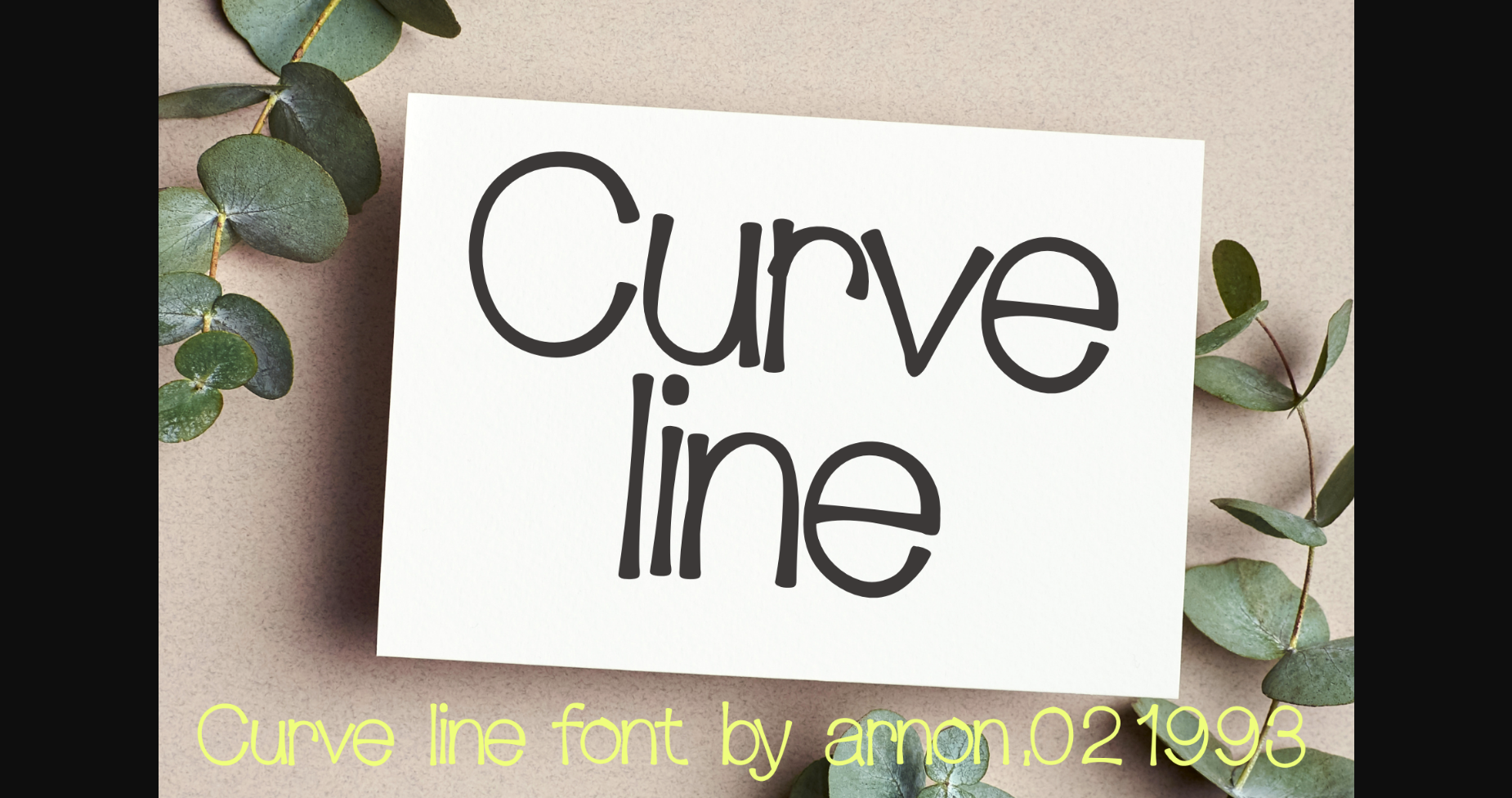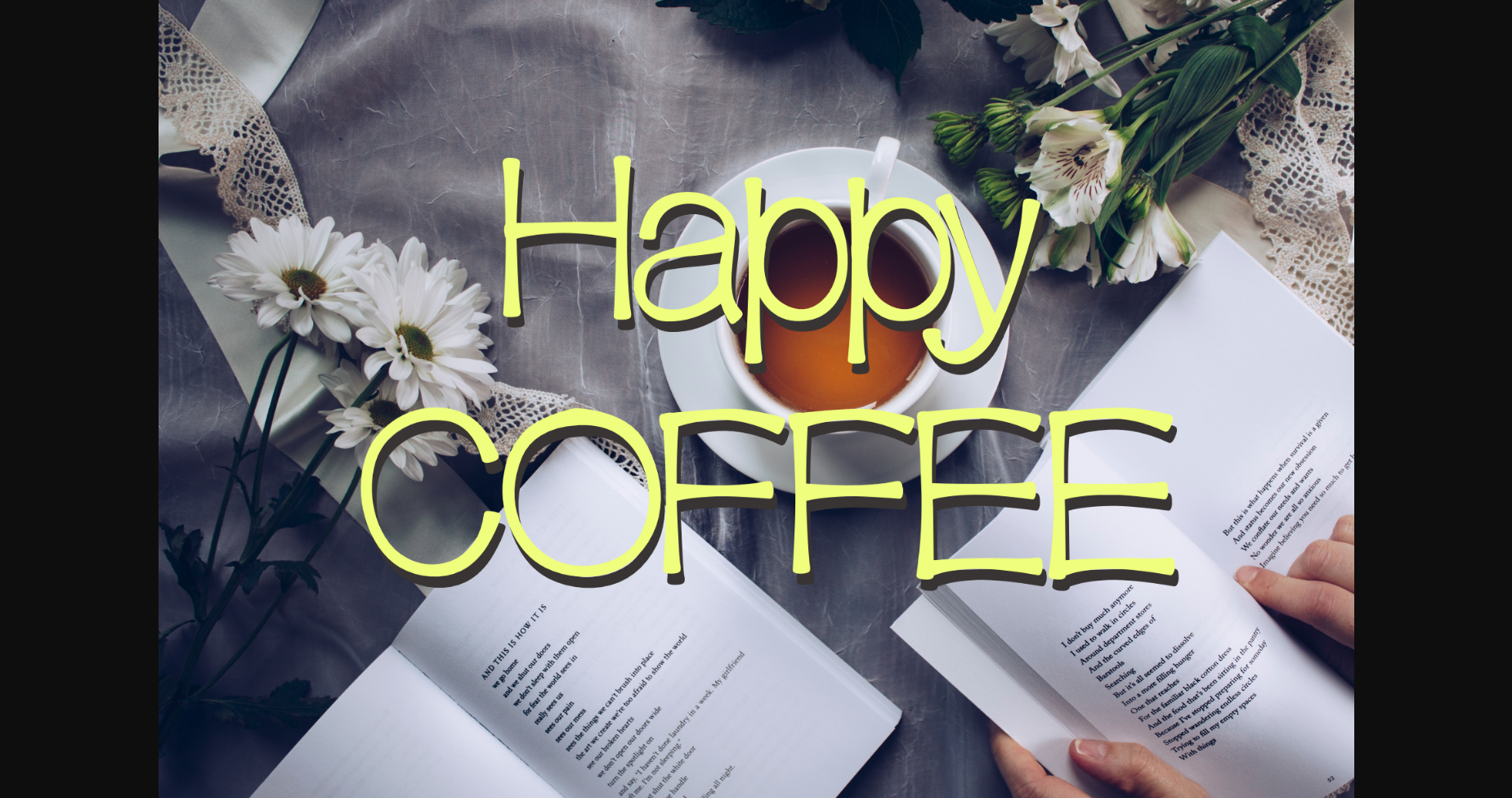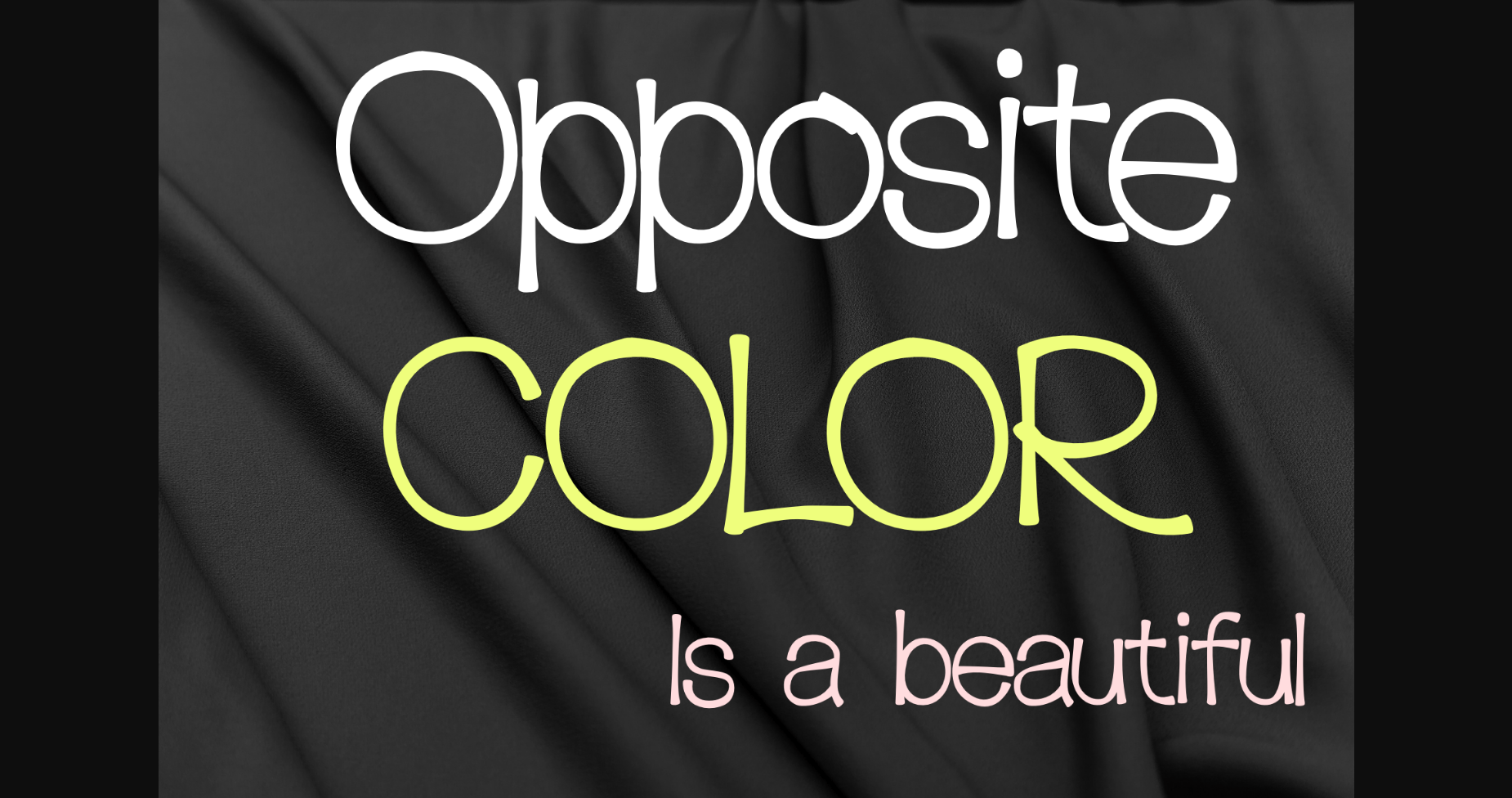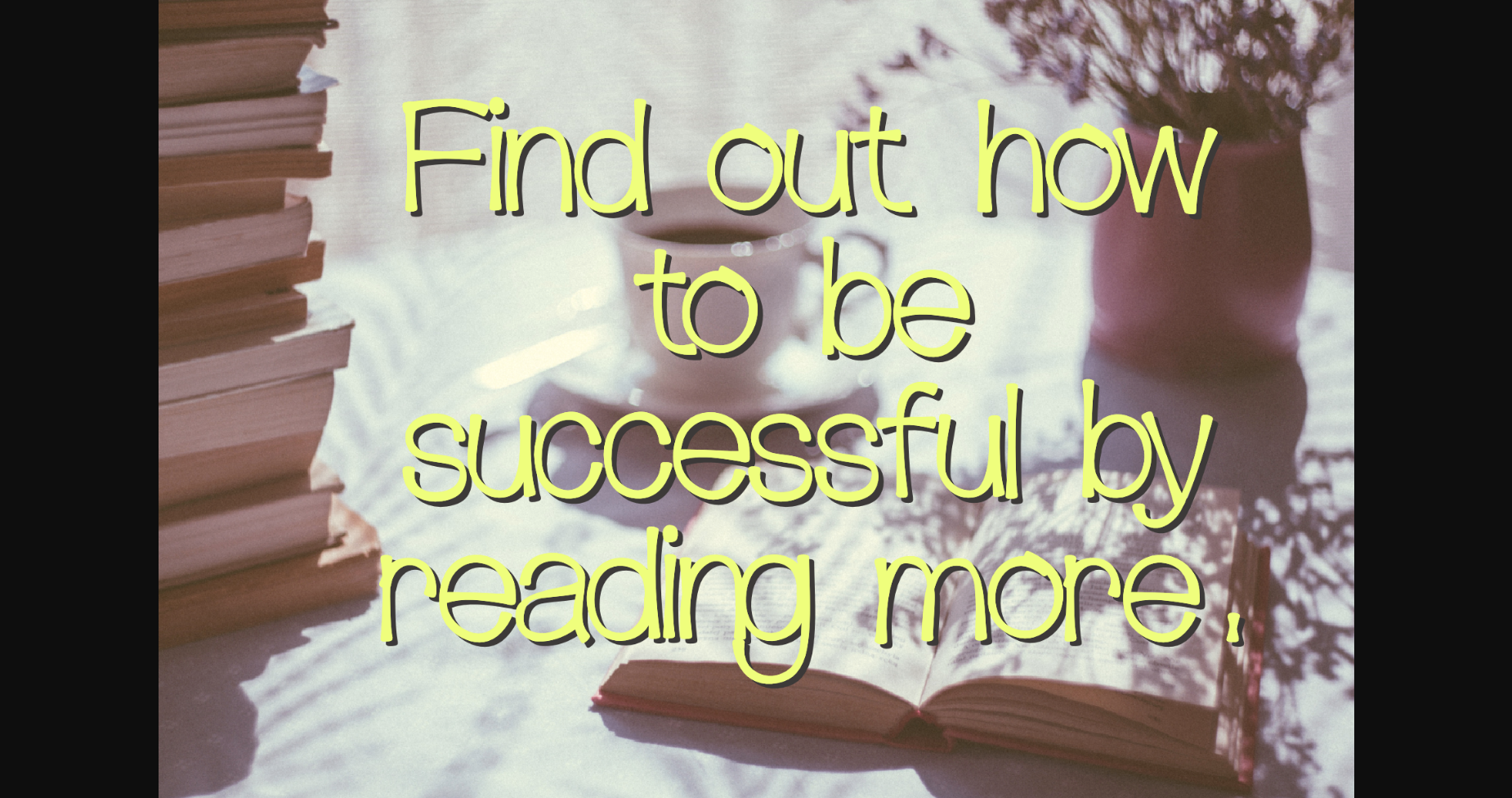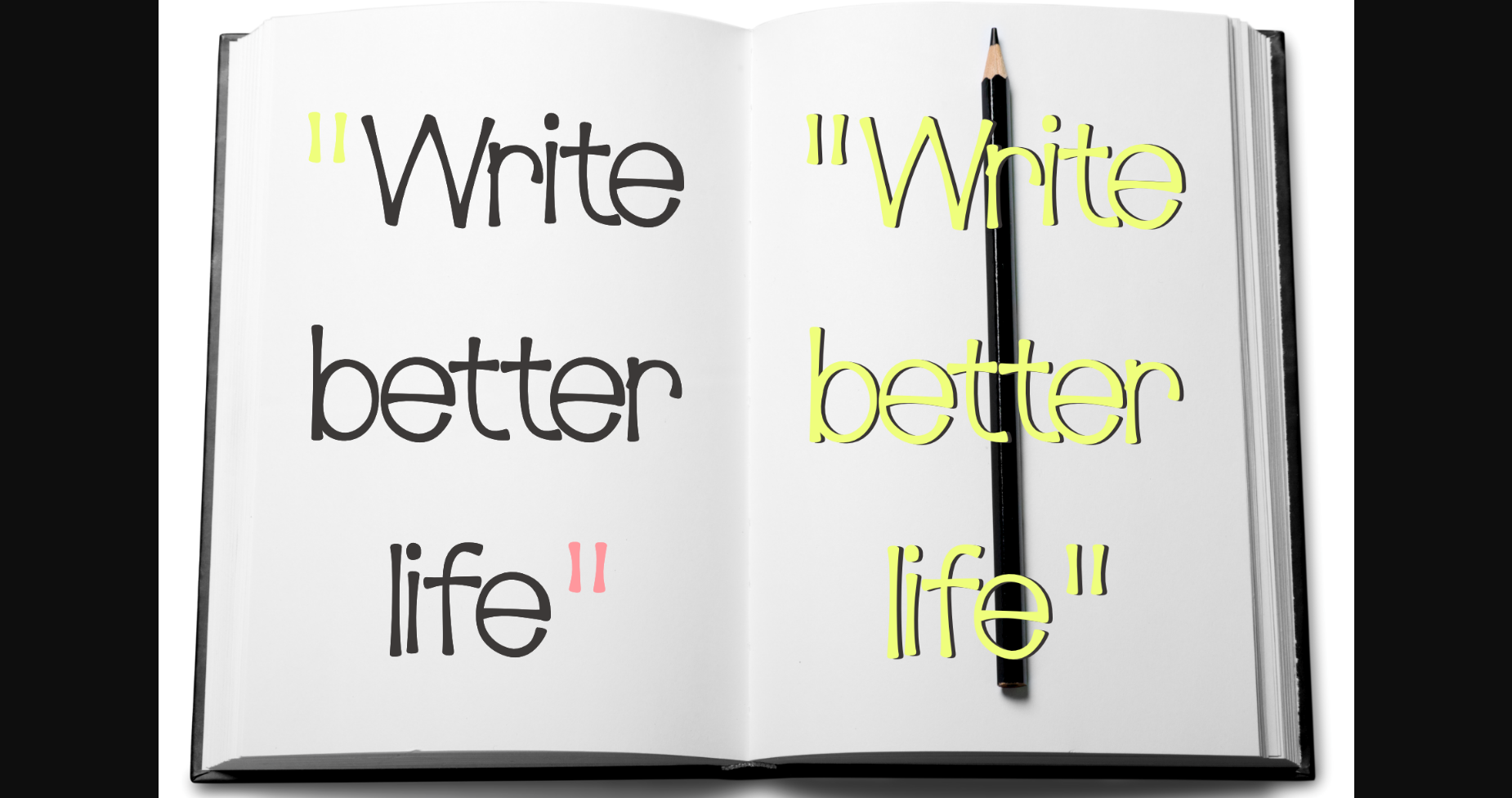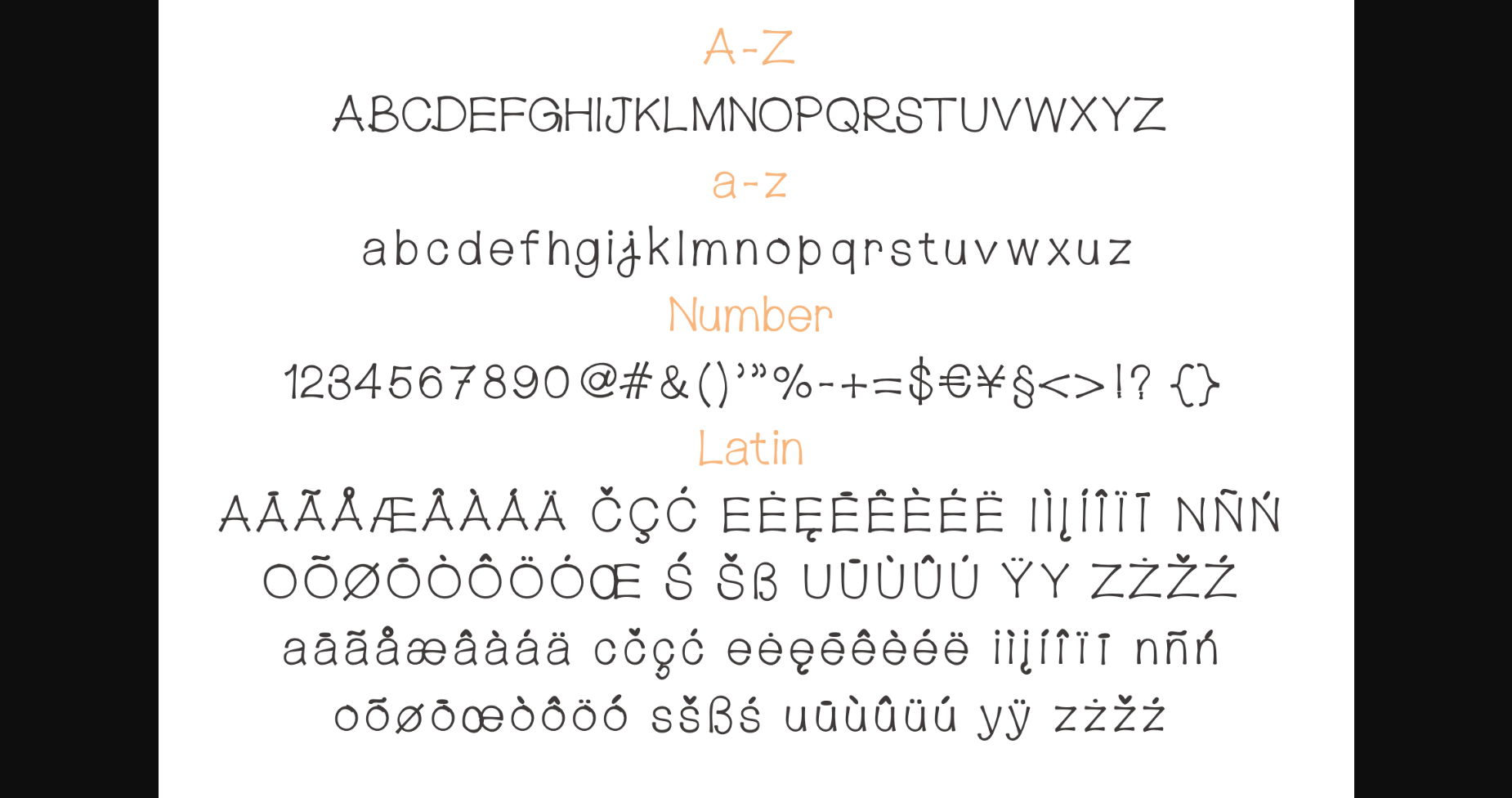
Curve Line Font
About Curve Line Font
Curve Line is an elegant serif font, that features a very delicate and classy look. Not too thin and not too thick, balanced and varied, Curve Line was designed to enhance the beauty of your projects.